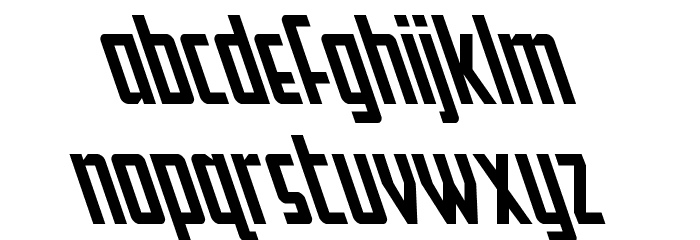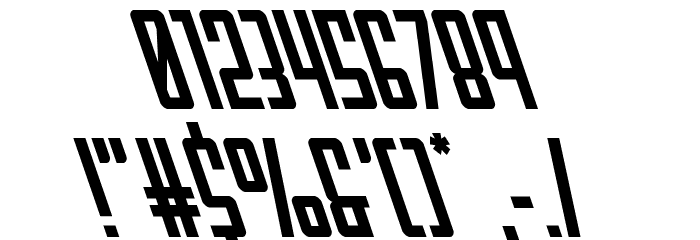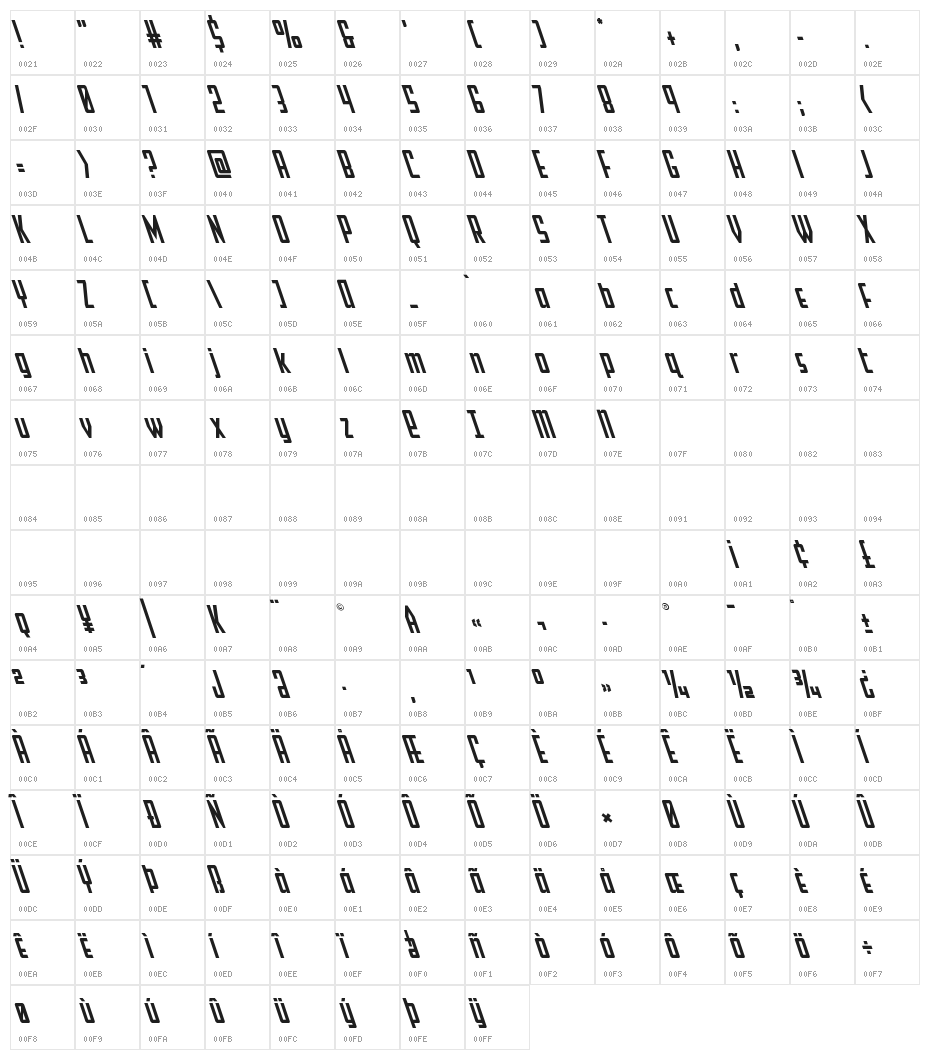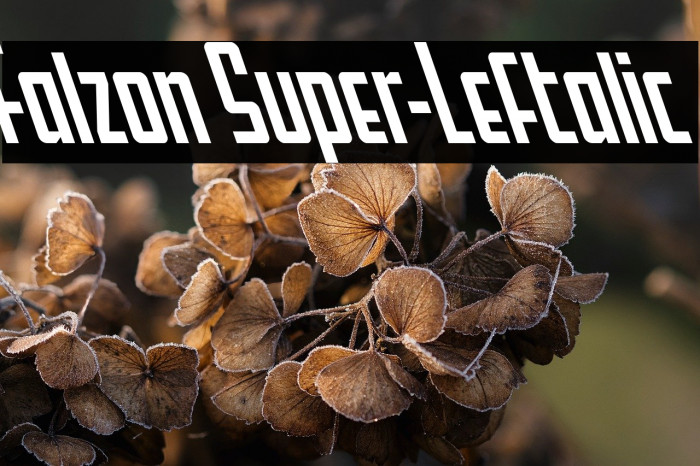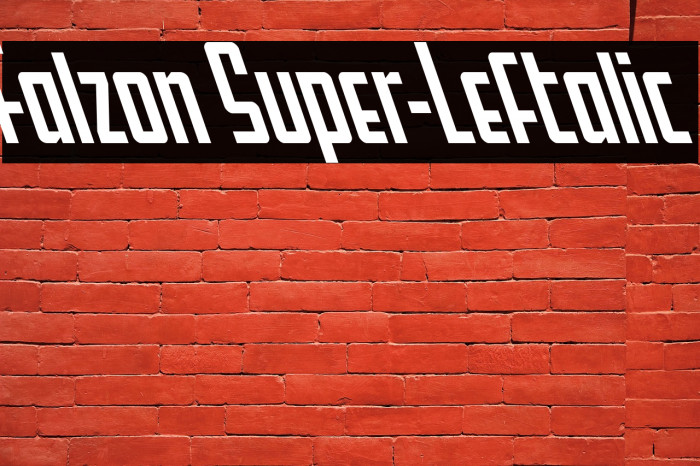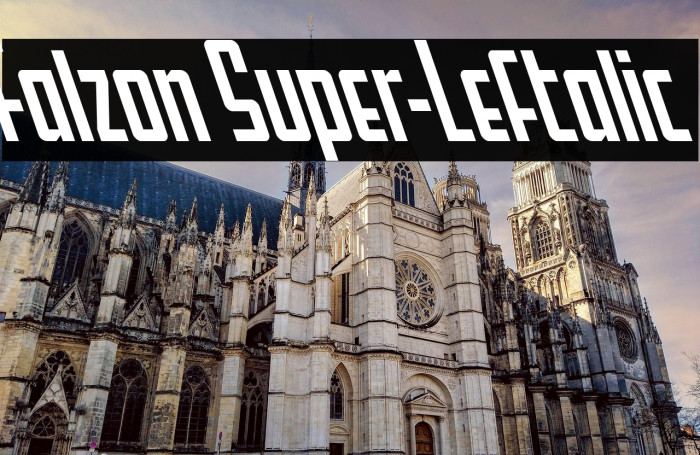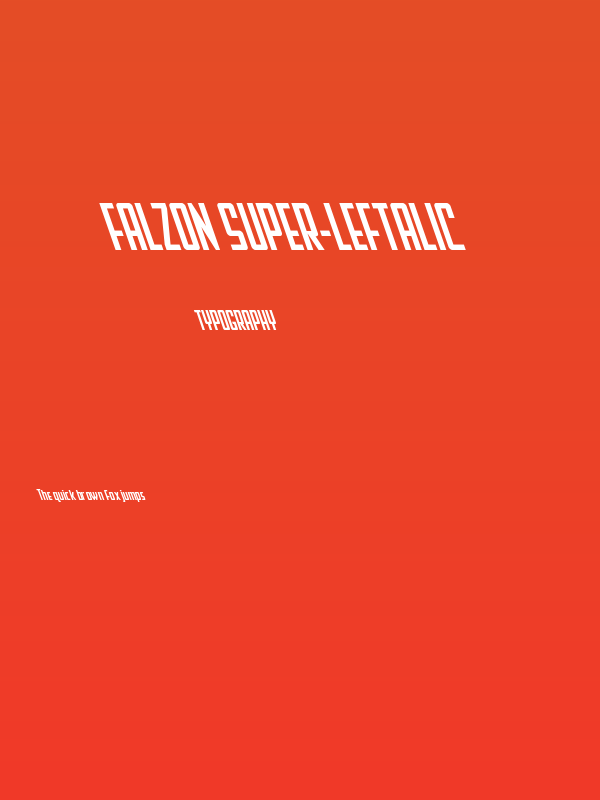
Falzon Super-Leftalic Font
This font features a bold and dynamic style with a distinct leftward slant, giving it a sense of motion and energy. The characters are angular and geometric, with sharp edges and a consistent stroke width that conveys strength and modernity. The uppercase and lowercase letters maintain a uniform height, enhancing readability while preserving the font's unique aesthetic. The numerals and special characters are designed to match the overall style, ensuring cohesion across all text elements. This font's bold appearance makes it suitable for impactful designs.
A bold, left-slanted font with angular, geometric characters.